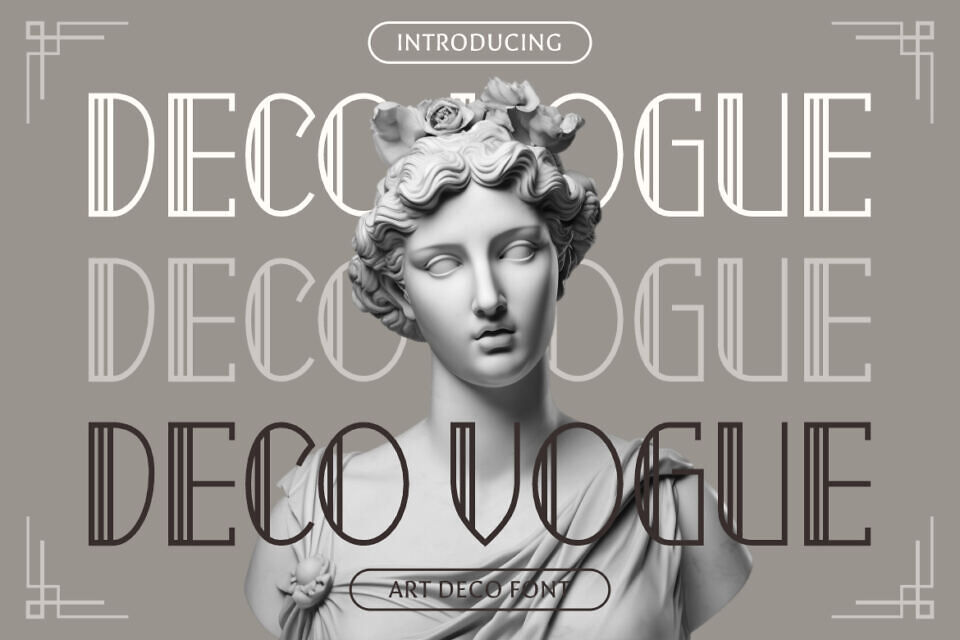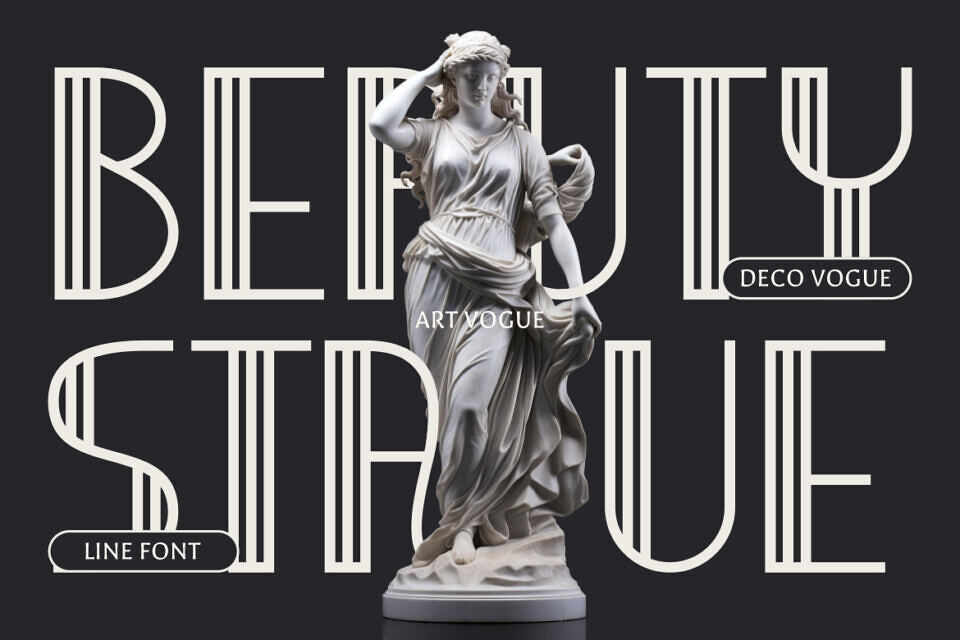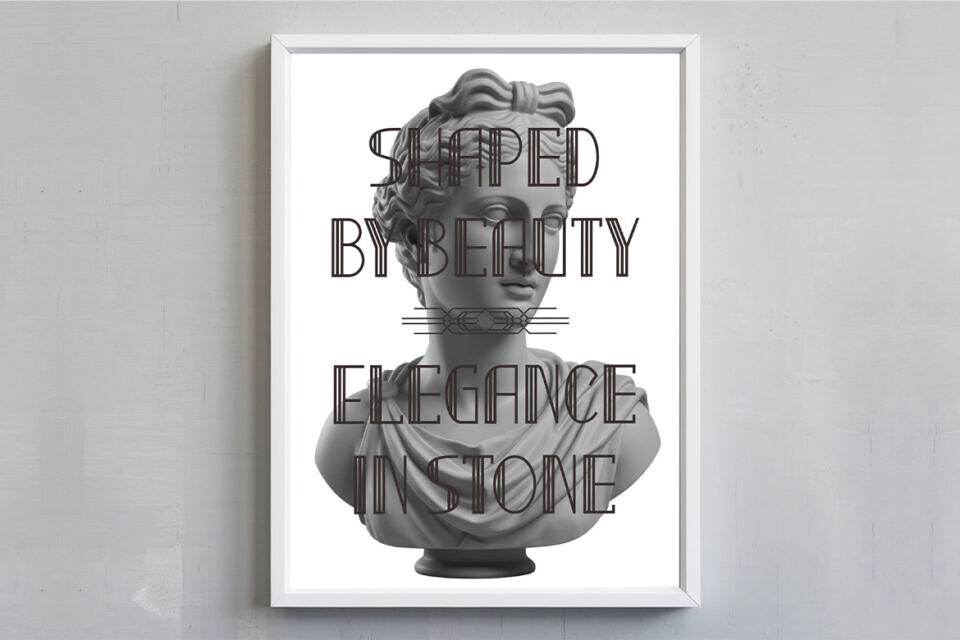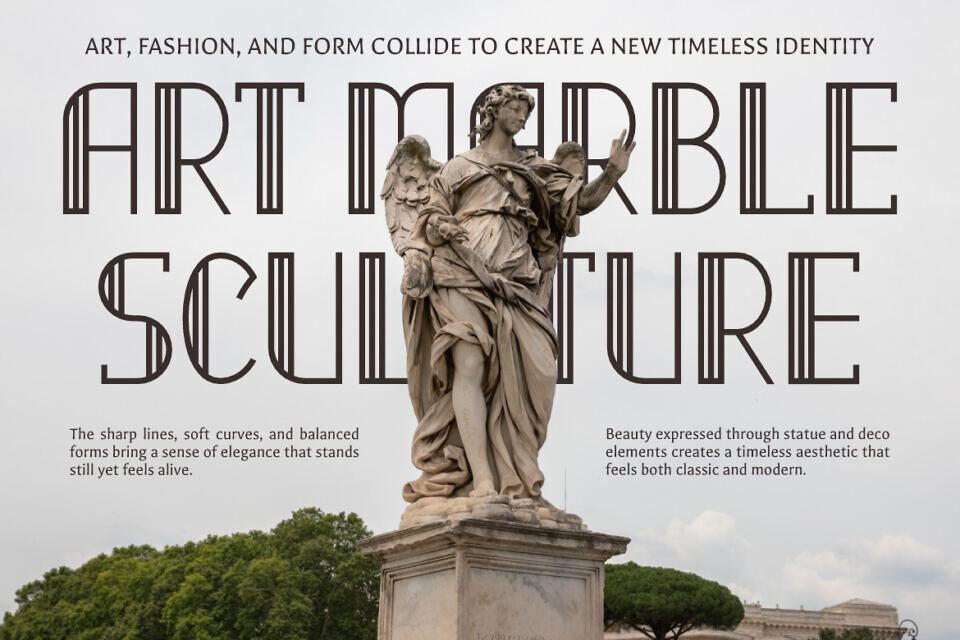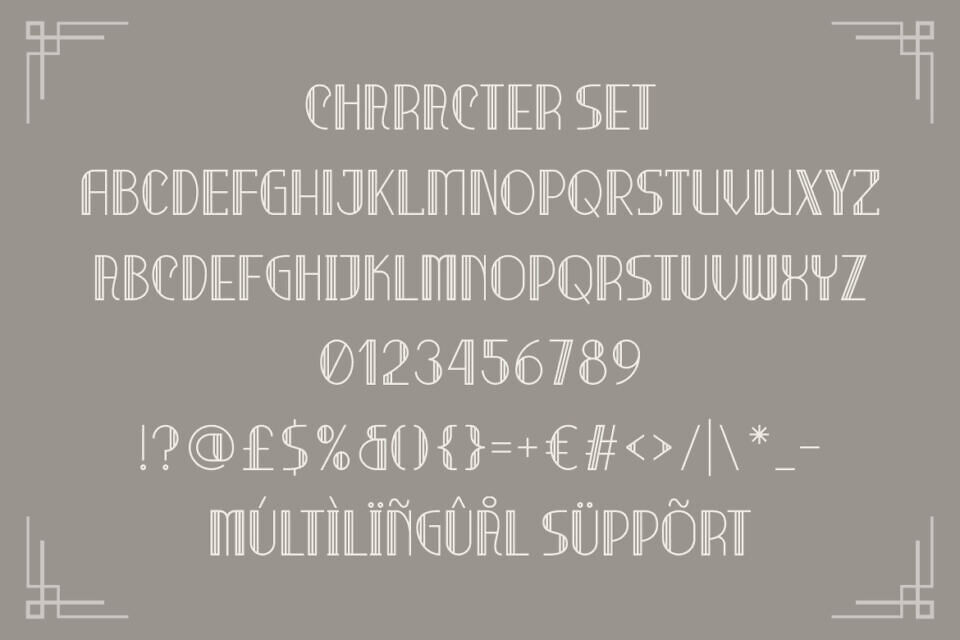
Deco Vogue Font
Deco Vogue “Art Deco Line” Font brings a tall, sleek, and structured letterform that reflects classic deco geometry. Each character is built with thin vertical lines, smooth curves, and defined terminals that form a balanced and stylish silhouette. The font uses elongated proportions and narrow spacing to create a luxurious rhythm that feels sophisticated and modern.
Its line-based construction gives every letter a refined presence while keeping the overall design light, airy, and artistic. The style blends elegance, symmetry, and ornamental finesse, making it ideal for timeless visual identities. Deco Vogue Art Deco Line Font supports creative projects that need a sharp and graceful typographic voice with high aesthetic value.